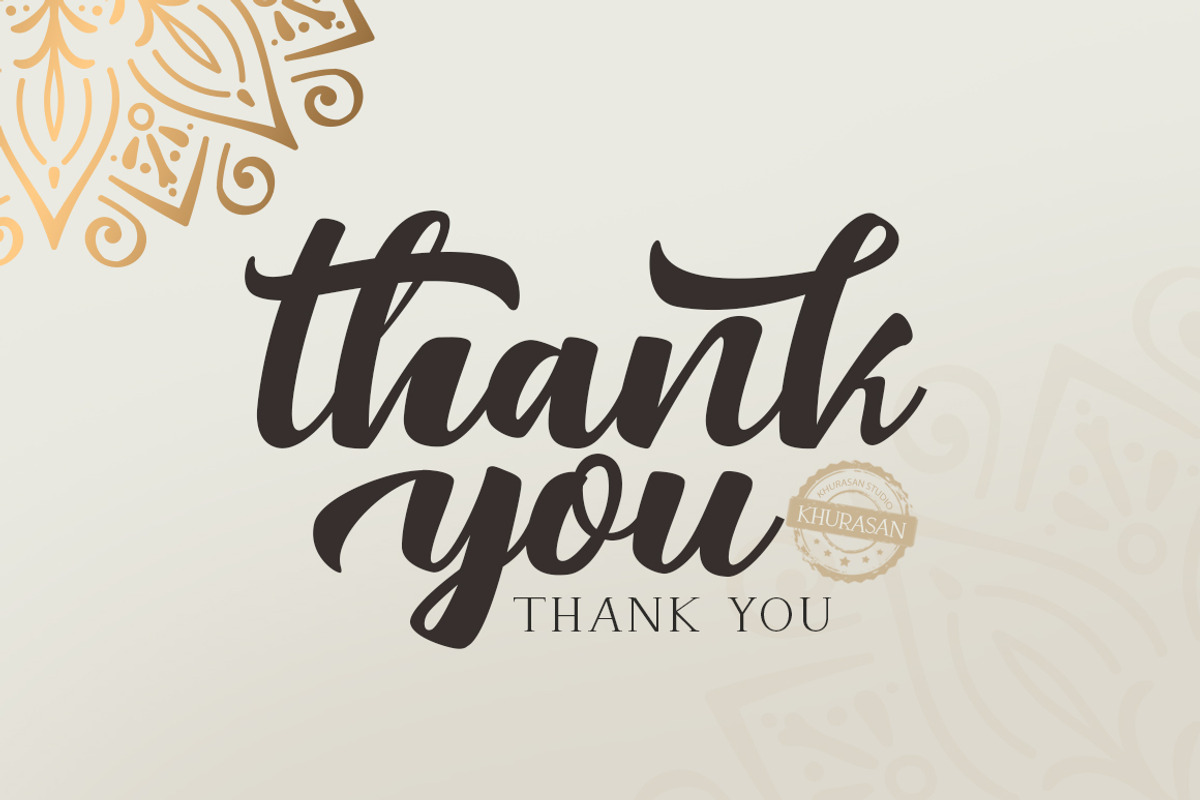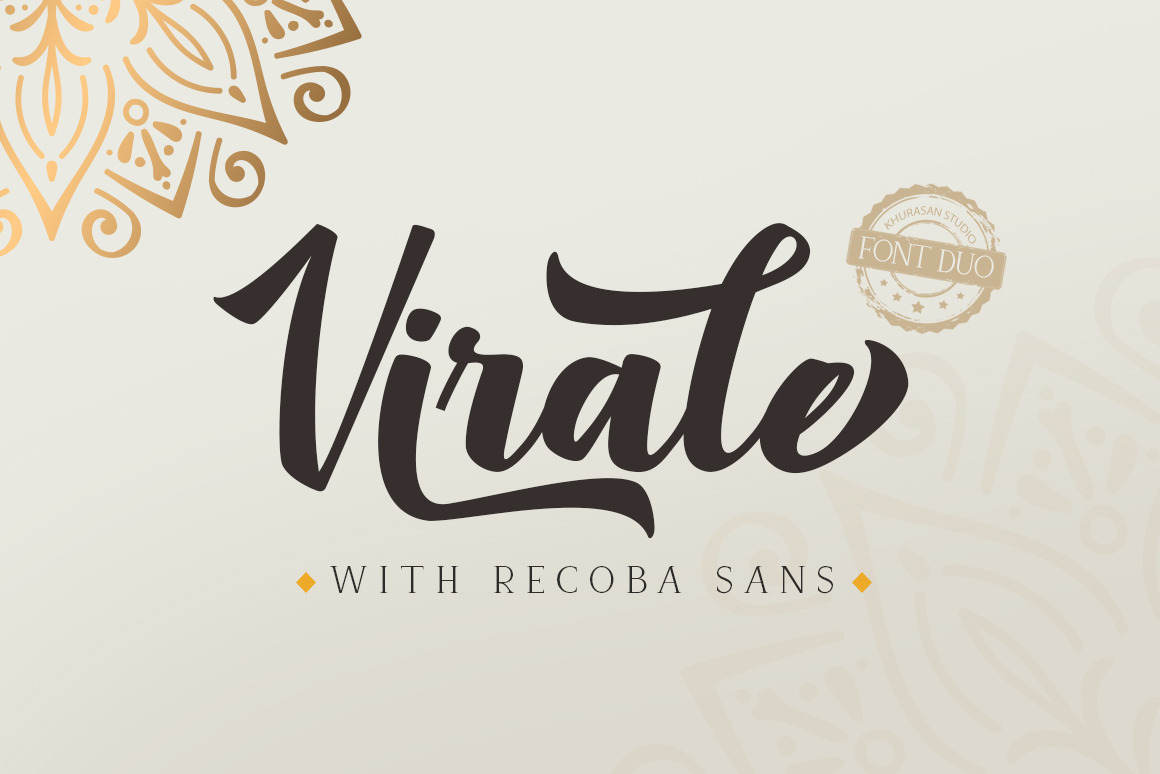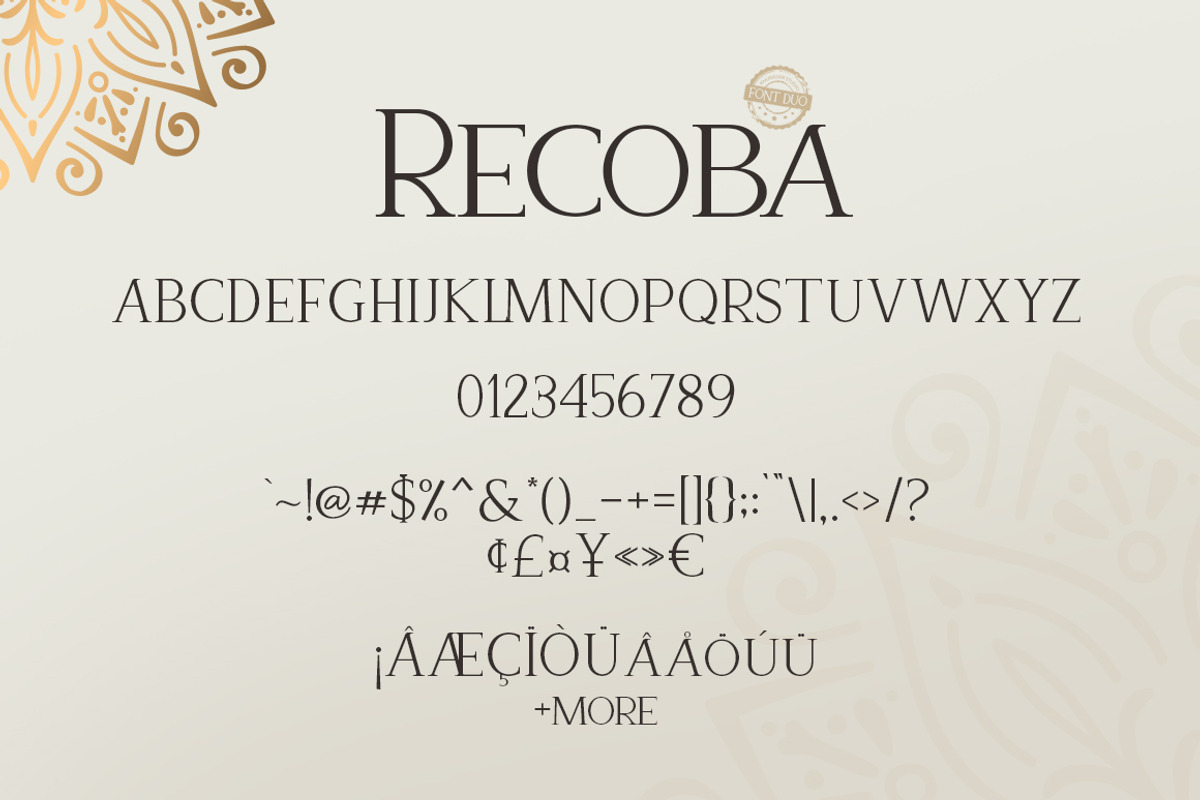
Virale Recoba Font Duos
The Virale Font is a fun modern script typeface, fresh & modern style with Recoba Sans font. You can combine script and sans to get amazing results. Virale Recoba Font suitable for logo, branding, greeting card, poster and any design that you create.